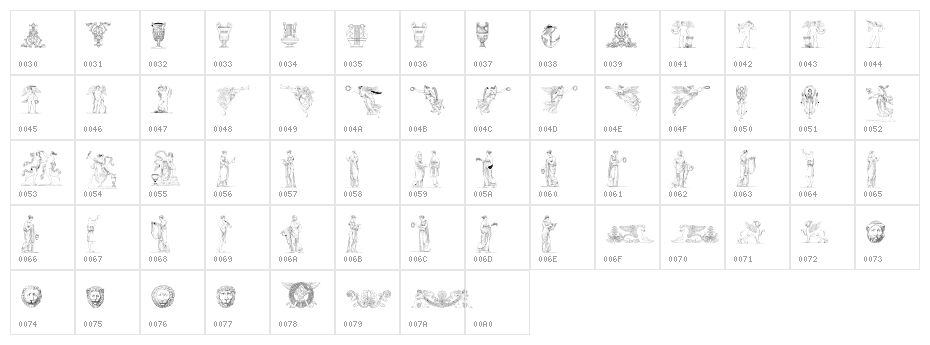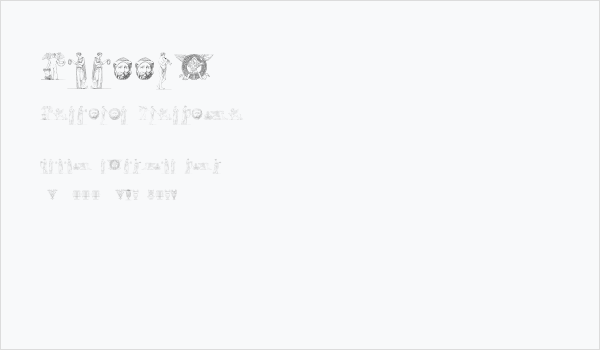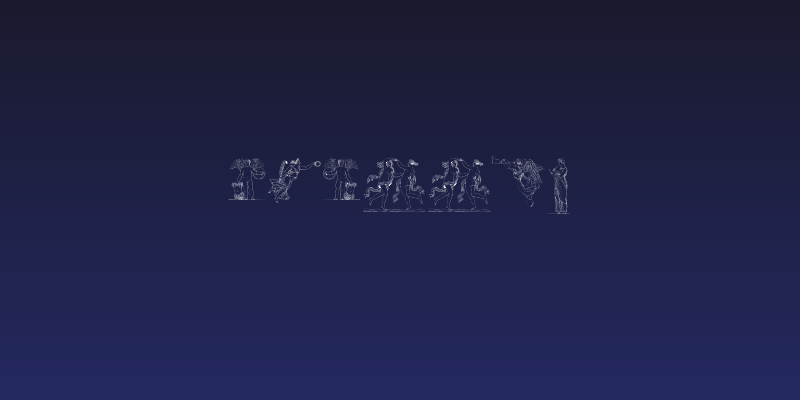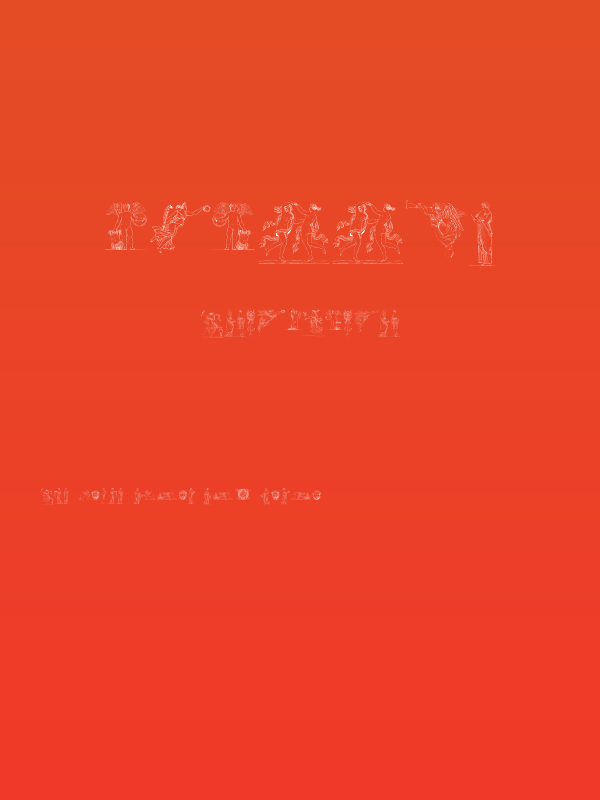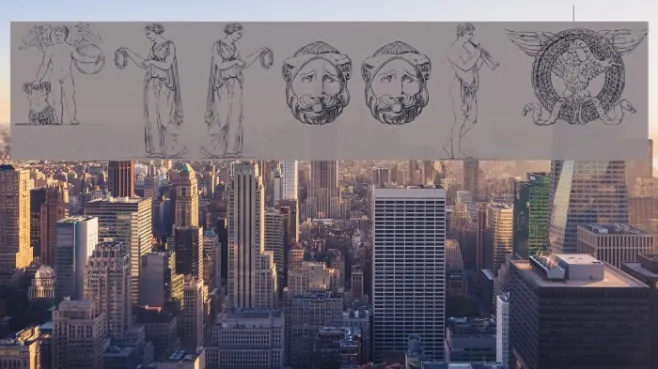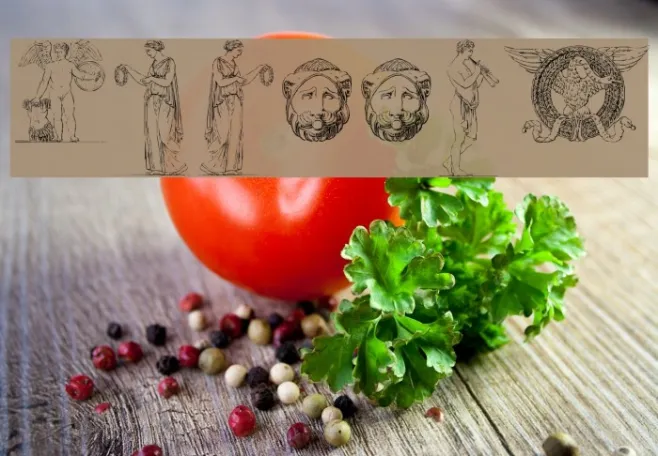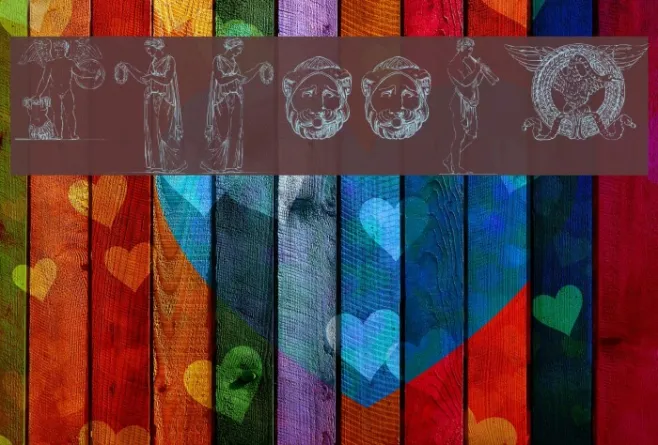
Classix Font
Classix Description
A highly decorative and detailed collection of classical illustrations featuring mythological figures, ornate vases, musical instruments, and intricate ornamental motifs, all rendered in fine line art with a vintage aesthetic.
| Overall Style | Vintage, Decorative, Classical |
| Use Case | Logos, Decorative elements, Titles, Art projects |
| Proposed Projects | Book covers, historical posters, museum branding, luxury packaging, event invitations, educational materials. |